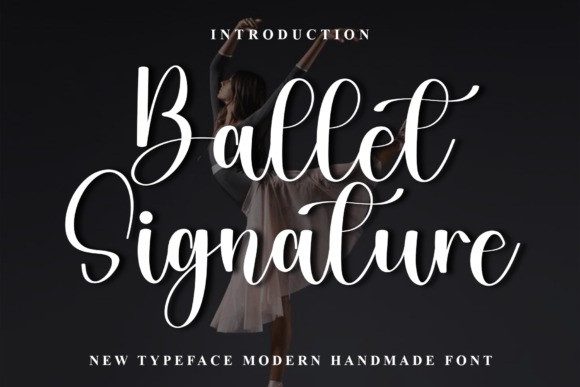
Ballet Signature Font
Ballet Signature Font With its smooth curves and romantic flourishes, this typeface brings a soft sophistication perfect for branding, wedding invitations, social media graphics, logos, and feminine product packaging. Each character is thoughtfully designed to evoke the fluidity of a dancer’s movement — delicate yet confident. Let Ballet Signature elevate your next design with timeless charm and poise.